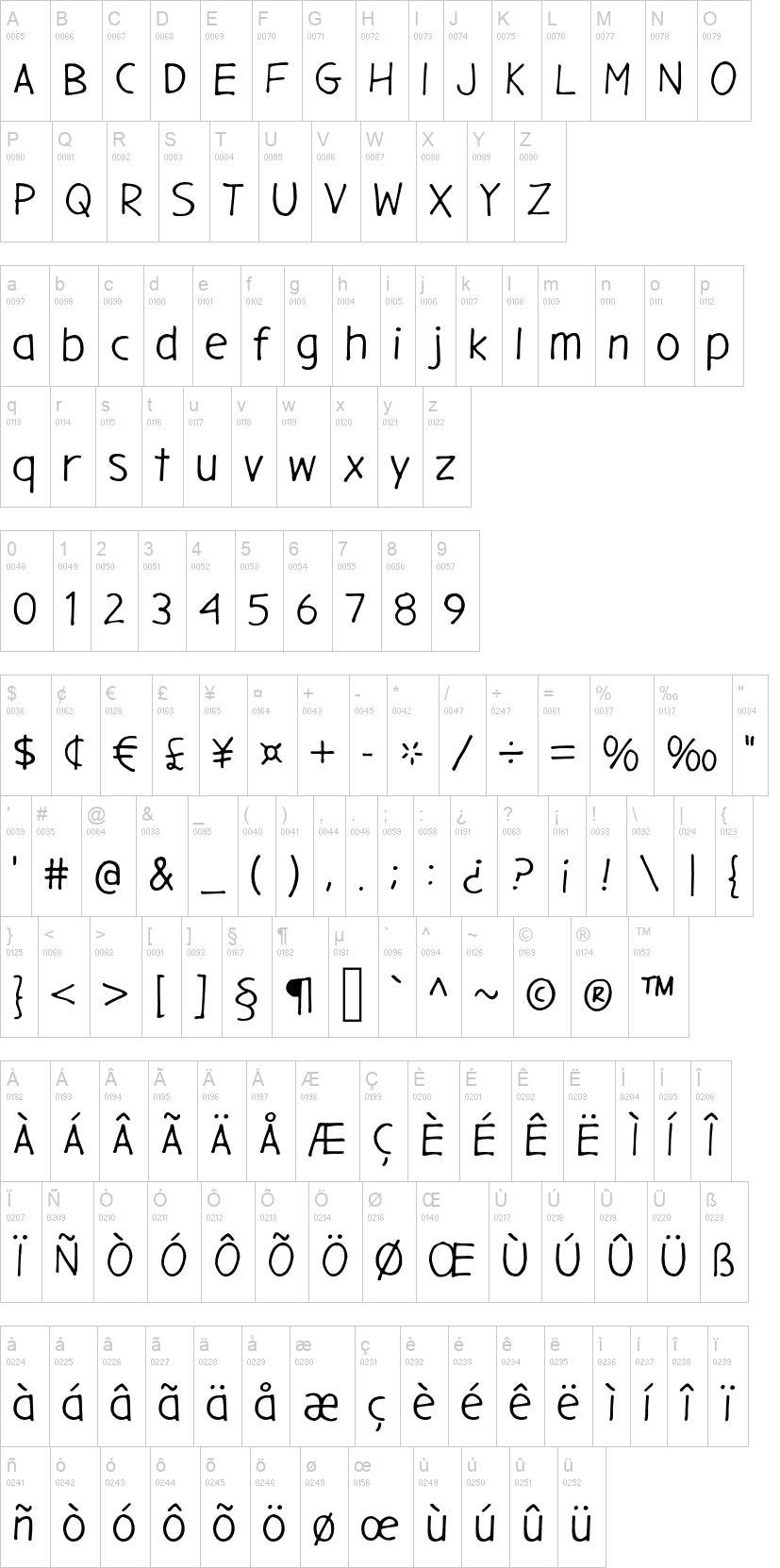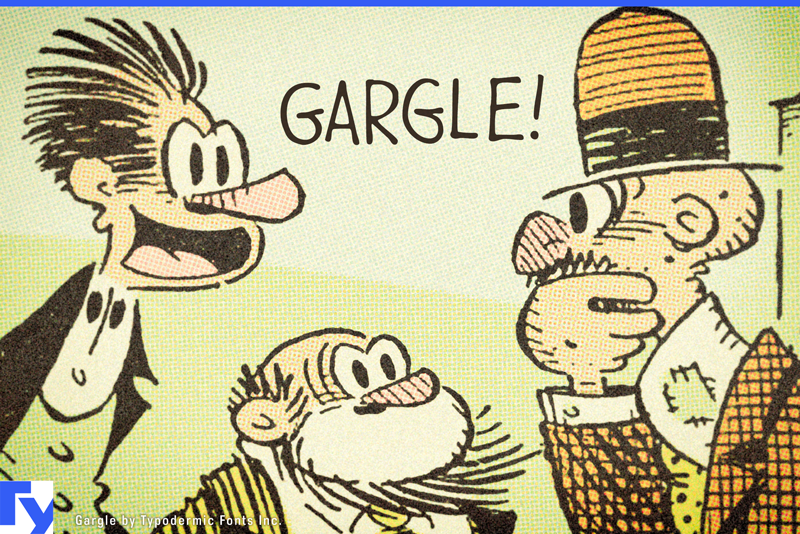
Gargle Cd It.otfGargle Cd Bd.otfGargle Cd Bd It.otfGargle Rg.otfGargle Rg It.otfGargle Bd.otfGargle Bd It.otfGargle Ex Rg.otfGargle Ex It.otfGargle Ex Bd.otfGargle Ex Bd It.otfNote of the authorGargle is a light, hand-drawn newspaper comic dialog typeface designed to harmonize with an informal felt-tip pen style. But its not just for comics. Gargle is also suited to imitating the look of an informal fanzine, indie album notes or hand drawn signs.
Three widths are provided to allow word-fit flexibility. In pre-digital comic design, copy-fitting wasnt the only way to squeeze words into word balloons. If you look at old newspaper comics, you can see how some artists would squeeze and stretch words to make them fit into a word balloon. With Gargles three widths, youll have some flexibility that you normally couldnt achieve with a single width typeface. Its recommended that the bulk of your comic dialog is displayed using capitals. Sometimes, a lowercase letter looks appropriate in words such as iPAD or McKENNA. Lowercase can also be used to indicate reading, thought, radio, vocalizations, whispering etc. In comic dialog emphasis, italics arent enough. Italics can still be used to indicate special terms, radio or whispering but if you want to shout, you have a choice of bold or bold italic. Youll probably find that the bold italic is the most effective way to emphasize individual words in a sentence while the upright bold works best for yell balloons or sound effects. In OpenType savvy applications, Gargles letters, numerals, commas, questions marks, exclamation marks and periods automatically shuffle a set of three variations to help create the illusion of hand lettering.
In comics, traditionally, the lone letter I is supposed to have serifs while an I in the middle of a word should be plain. Gargle contains OpenType programming which automatically adds serifs the I in words such as I, Im and initials like M.I.A. Serifs are also added to the I when followed by a lowercase L for words such as Illinois. Of course, the serifed I has three shuffled variations as well. Gargle contains some useful comic symbols, but you wont need to look them up in a glyph table. Just use the handy shortcodes below and the symbol will automatically be substituted. These shortcodes will even work in other languages.
<< >> = whiskers
((swirl)) a coil...handy for obfuscating curses
((zigzag)) an angry vertical scribble
((skull)) a skull and crossbones (solid version in the bold styles)
((scribble)) a criss-cross scribble
((cloud)) a white cloud with lightning (black cloud in the bold styles)
((scrawl)) or ((scribble2)) = a long, horizontal scribble. (angrier in the bold styles)
((lightning)) a lightning bolt (solid version in the bold styles)
((!!!)) A cluster of three heavy exclamation points (solid version in the bold styles)
((knife)) a dagger (solid version in the bold styles)
((star)) a big star (solid version in the bold styles)
((star2)) a medium star (solid version in the bold styles)
((star3)) or ((stars)) two small stars (solid version in the bold styles)